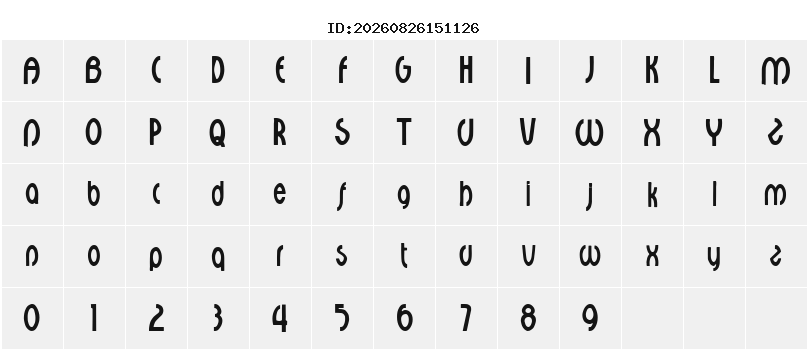
Walburga Preview
• Font Name: Walburga
• Full Font Name: Walburga
About Walburga.ttf
Walburga.ttf is a modern, elegant sans-serif font designed for ultimate readability and visual harmony. Perfect for branding, headlines, web design, and print materials.